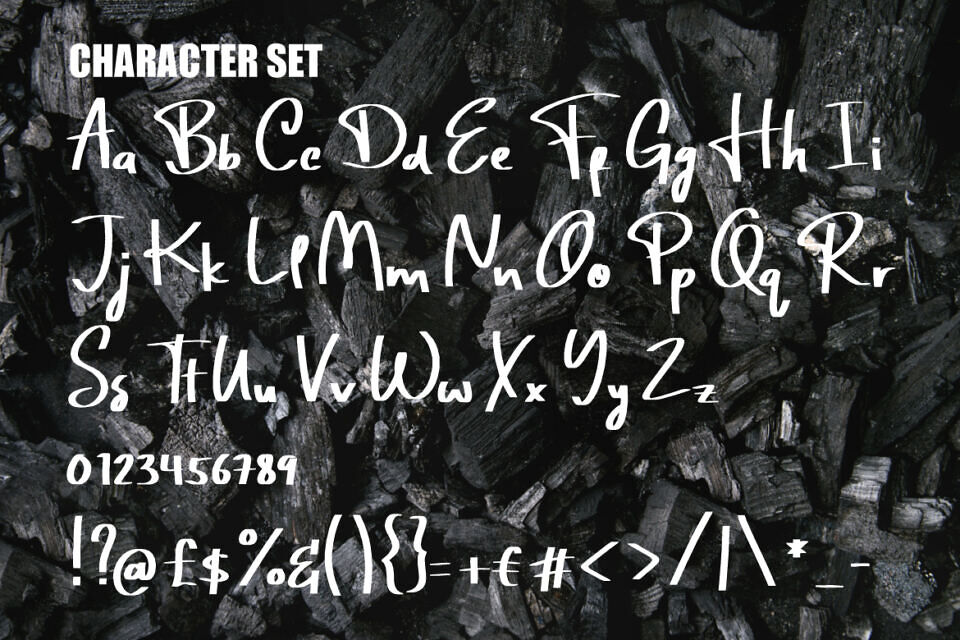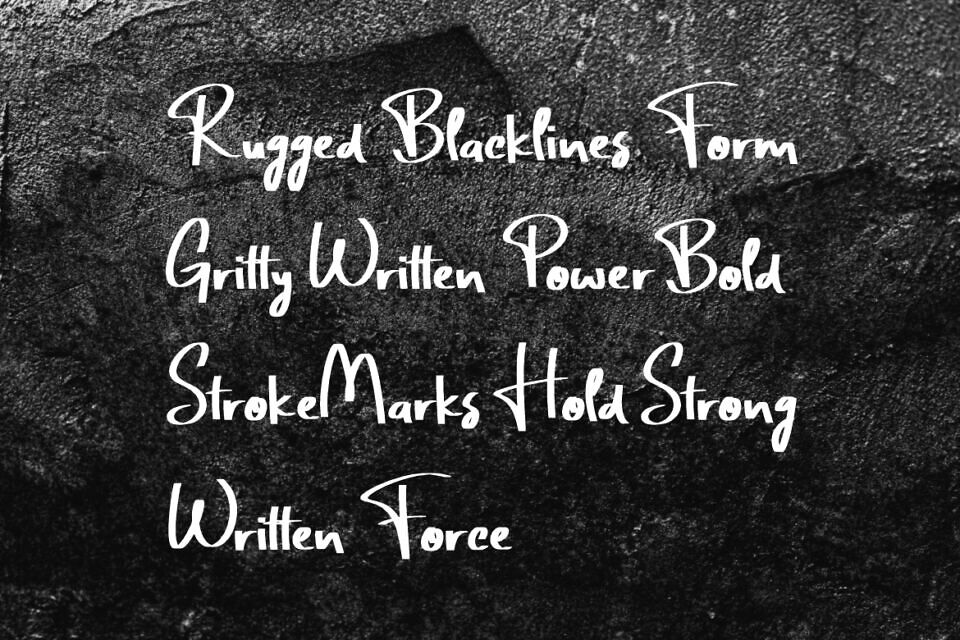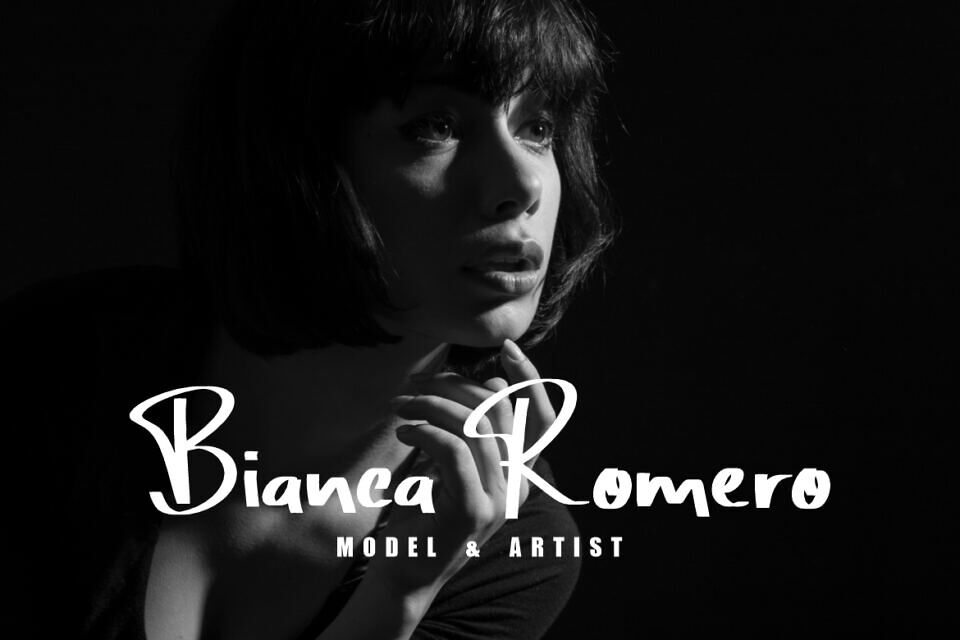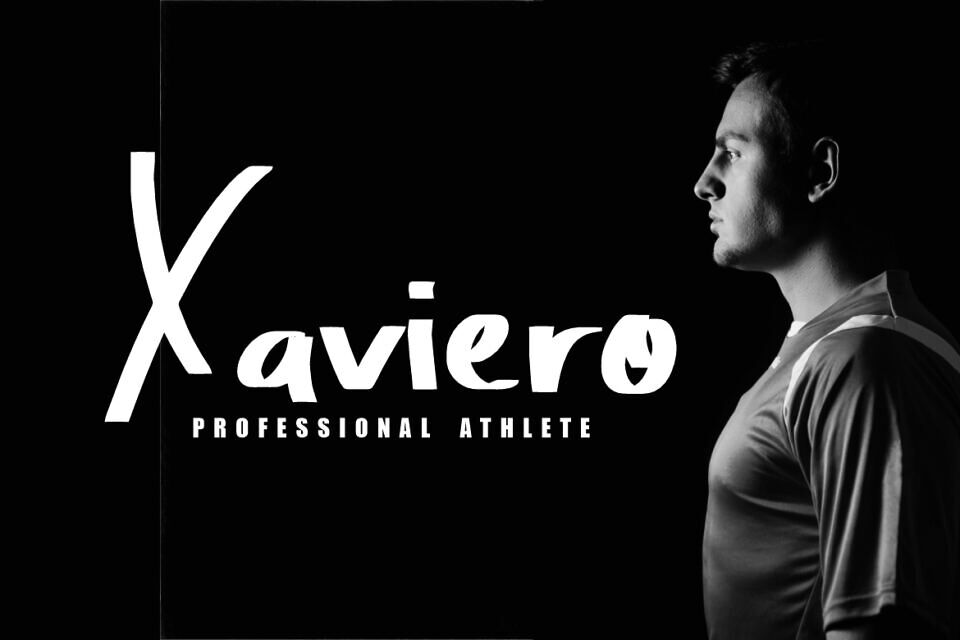
Formink Font
Formink Brush Font is a dynamic handwritten typeface designed with raw brush energy and authentic lettering strokes. The characters feature tall, slightly uneven heights that emphasize natural movement, while their medium-to-thick weights ensure bold readability.
The brush texture creates a handcrafted impression, blending organic imperfection with modern style. Each stroke flows with expressive rhythm, giving the font a personal yet professional character. The irregular edges enhance its handwritten feel, making every letter unique and visually captivating. This balance of power and elegance allows designers to use the font for impactful and stylish results.